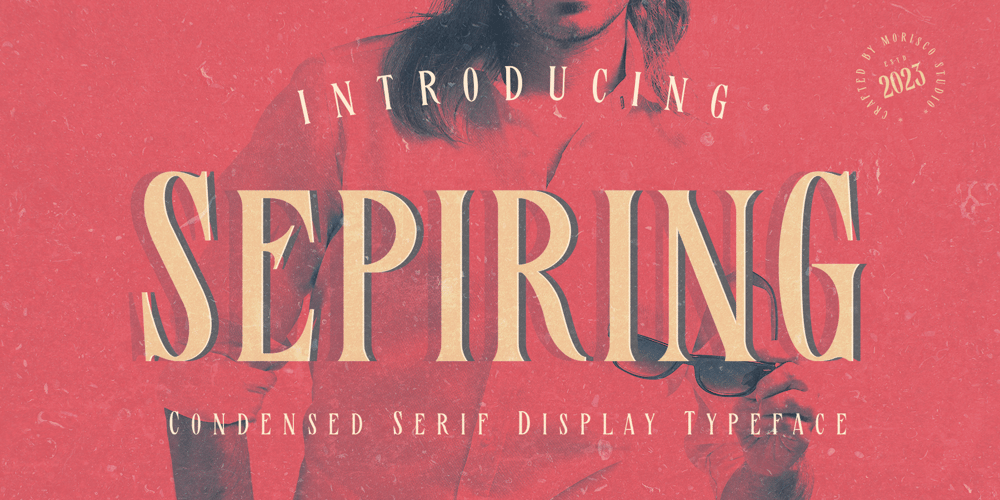
Sepiring Font Family was designed by Fathur Rahman and published by Morisco Studio. Sepiring contains 1 styles and family package options. Sepiring is a Condensed Serif Display Typeface with a unique character designed by morisco studio. This typeface, well-suited for headline and any project, like branding, print template, logo, and more.Features: Uppercase & Lowercase Symbols & Punctuation Files you get:Sepiring RegularThis Font is set for Commercial LicenseI really hope you enjoy using Sepiring. Please don’t hesitate to drop me a message if you have any questions. Thank You and Happy Designing